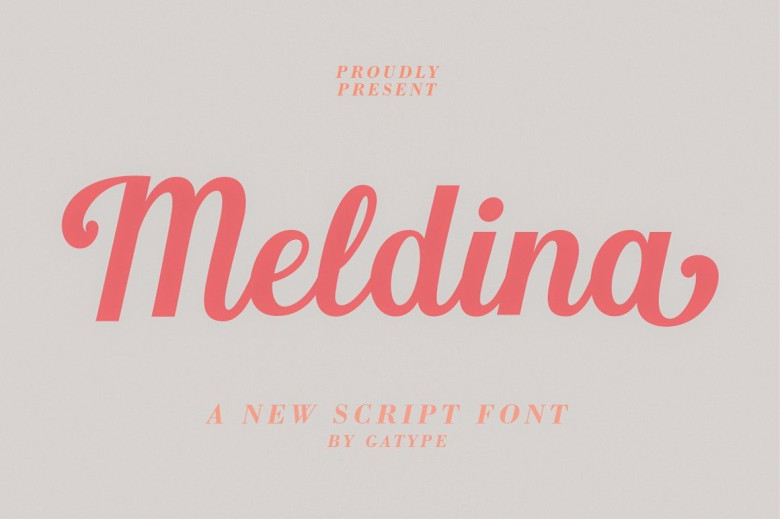
Meldina Font
Meldina can be described as a contemporary script calligraphy font with attractive strokes, suitable for casual environments. Its casual aesthetic makes it great for use in logos, packages, invitations to weddings branding and headlines, signage labels and books, signatures posters quotes or any other purpose you can imagine.
Meldina Calligraphy Script Font